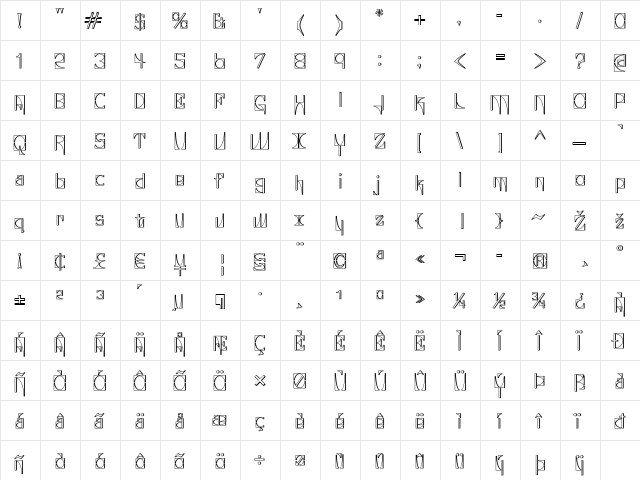
Glaukous - Industrious Regular
| Designer | Richard Parker |
Design Context for Glaukous - Industrious Typeface
Glaukous - Industrious is a composed and adaptable typeface that performs quietly and consistently across a wide range of design contexts.